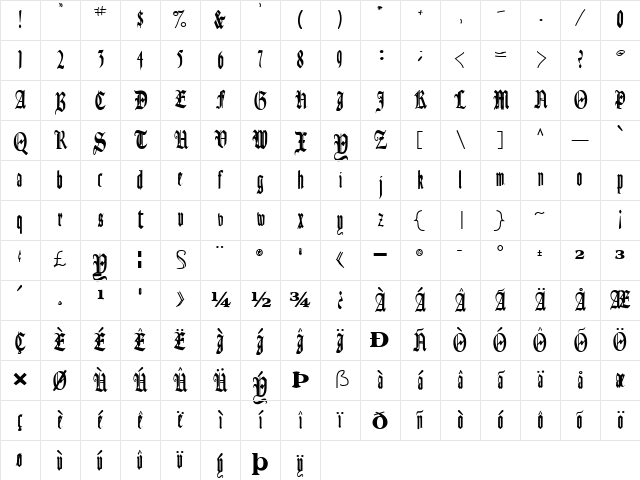
AuthurFont110 Bold
Design Context for AuthurFont110
AuthurFont110 is a composed and adaptable typeface that performs quietly and consistently across a wide range of design contexts. Its bold stroke weight gives it real presence on the page.